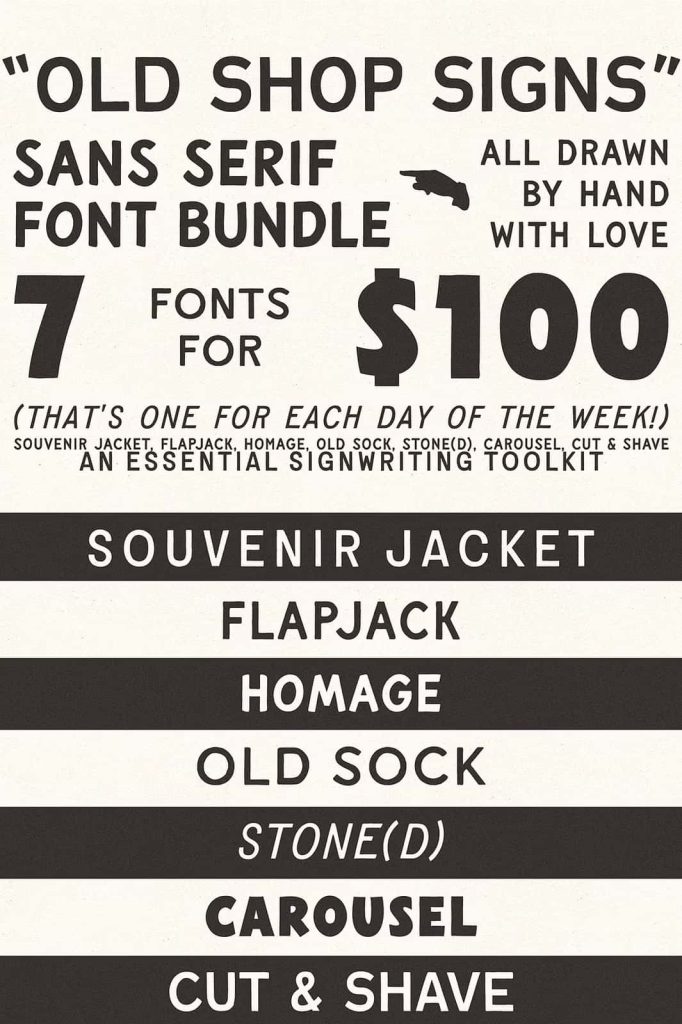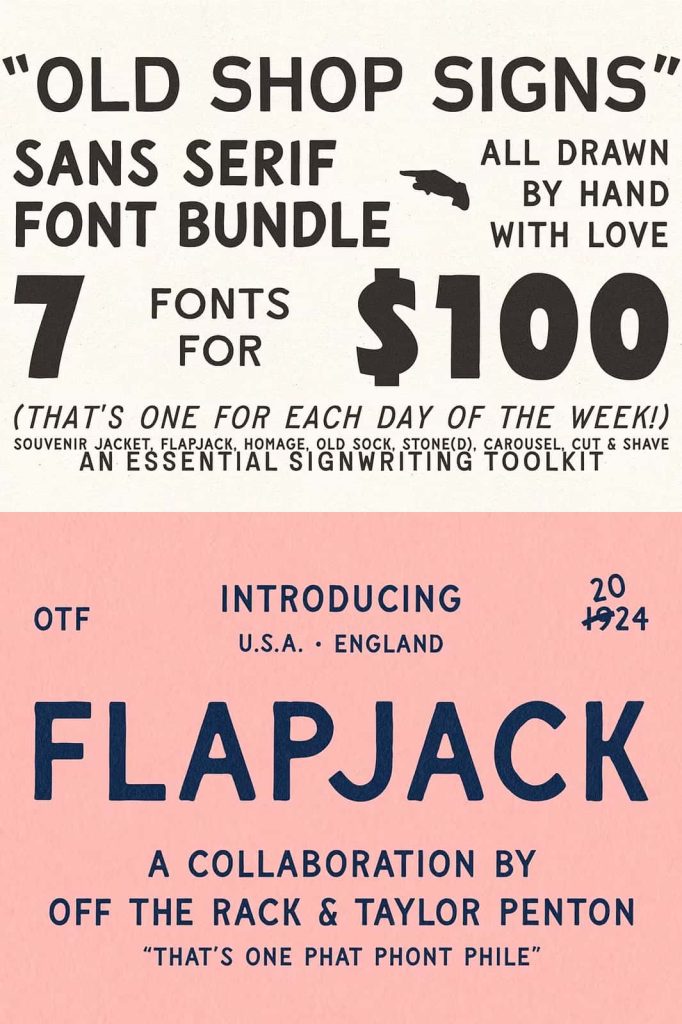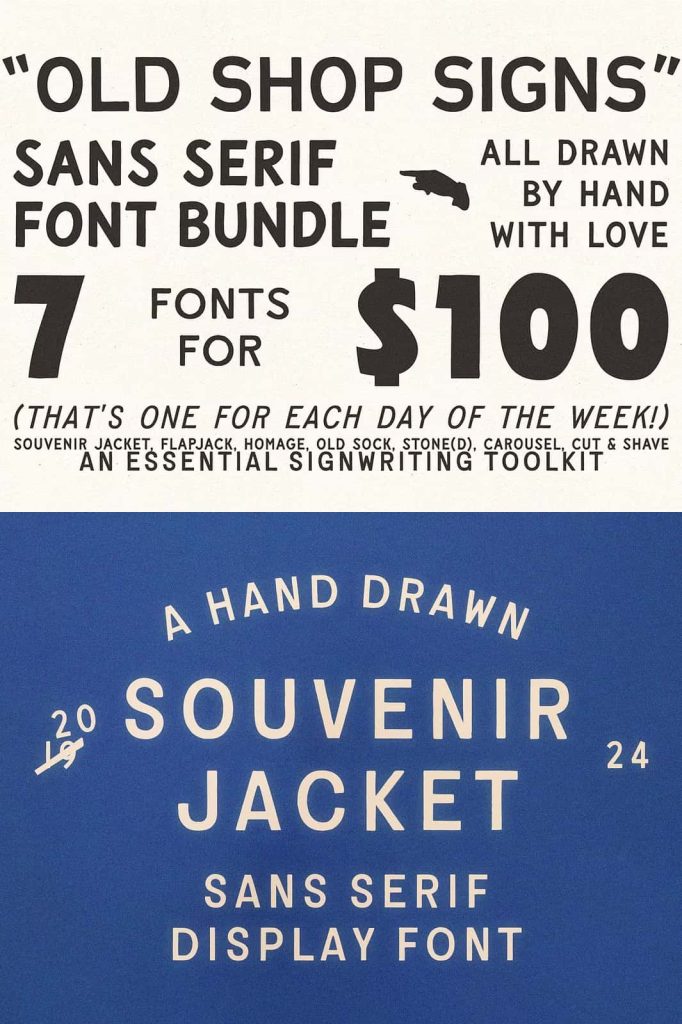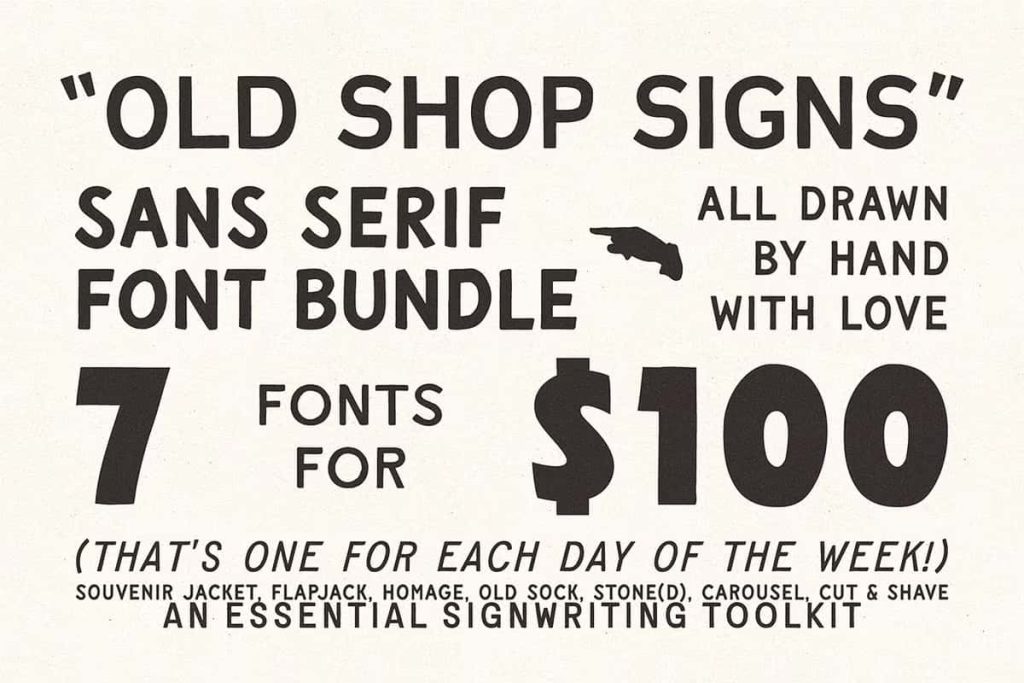
Vintage Sans Serif Font Collection
Bring authentic handmade character to your next creative project with this versatile vintage sans serif font collection. Designed to work across a wide range of applications, this collection gives you the freedom to mix and match different hand-drawn styles while creating a cohesive visual identity. Every font in the collection takes inspiration from classic signwriting and traditional lettering, capturing the imperfect charm that makes handmade typography so appealing.
Instead of relying on perfectly uniform digital forms, these fonts embrace subtle irregularities and natural variations. Each letter feels intentionally drawn by hand, creating a delightfully wonky appearance that adds warmth, personality, and authenticity to your designs. Whether you are building a vintage brand, designing packaging, creating posters, or preparing social media graphics, this collection helps your typography stand apart from standard digital fonts.
Authentic Hand-Drawn Character
The collection focuses on the natural qualities of traditional signwriting. Each font receives careful hand-drawn treatment to preserve the small variations that make handmade lettering feel genuine. Slight differences in curves, proportions, and spacing create an organic rhythm that digital typefaces often struggle to reproduce.
This approach gives your designs a more personal visual voice. Instead of appearing overly polished or mechanical, the lettering feels like a skilled sign painter created it specifically for your project. The result works particularly well for brands and designers who want to communicate craftsmanship, nostalgia, creativity, and individuality.
Inspired by Classic Signwriting
Classic signwriting provides the foundation for the collection’s visual personality. Traditional signs often relied on strong lettering, confident shapes, and practical compositions that needed to remain visible and memorable. These fonts capture that same spirit while adapting it for modern digital design.
The hand-drawn construction preserves the character of old-fashioned storefronts, market signs, advertisements, labels, and painted typography. You can use these fonts to recreate a vintage atmosphere without making your project feel outdated. Their expressive forms work equally well in retro-inspired designs and contemporary compositions.
Mix and Match for Unique Results
One of the biggest advantages of a font collection is the ability to combine different styles. Mix and match the fonts to establish clear hierarchy, create contrast, and give each part of your design a distinctive role. Use a stronger style for the main headline, a complementary font for secondary information, and another variation for decorative accents.
Combining multiple hand-drawn styles can make your typography feel more authentic and dynamic. You can create layouts that resemble vintage advertisements, hand-painted shop signs, old product labels, market packaging, or classic promotional graphics. The different styles work together while maintaining the same handcrafted visual language.
Perfect for Vintage-Inspired Branding
This vintage sans serif font collection provides an excellent foundation for branding projects that need personality. Use the fonts to create logos, wordmarks, slogans, packaging titles, labels, business cards, and promotional materials. The hand-drawn aesthetic can help a brand communicate craftsmanship and authenticity from the very first impression.
The collection works particularly well for cafés, restaurants, breweries, bakeries, clothing brands, barbershops, creative studios, artisan businesses, food companies, lifestyle brands, and independent retailers. The nostalgic appearance can help these businesses create a recognizable identity while maintaining a friendly and approachable tone.
Make Packaging Stand Out
Packaging provides an ideal opportunity to showcase hand-drawn typography. These fonts can transform ordinary product names into memorable visual elements. Use them for labels, product titles, flavor names, promotional messages, stickers, boxes, bags, and specialty packaging.
The imperfect handmade quality can make products feel more personal and crafted. This approach works especially well for products that emphasize traditional methods, independent production, local character, or creative craftsmanship. Combine the typography with illustrations, textures, muted colors, or vintage-inspired layouts to strengthen the overall aesthetic.
Great for Posters and Signage
The strong personality of these fonts makes them highly effective for posters and promotional graphics. Their hand-drawn construction creates immediate visual interest, while the bold sans serif foundation keeps important messages easy to recognize.
Use the collection for event posters, music artwork, market signs, festival promotions, restaurant menus, community announcements, advertising campaigns, and retail signage. Large headlines can create an immediate focal point, while smaller supporting text can complete the composition without competing with the main message.
Use the fonts individually or mix and match them to create distinctive visual identities. From logos and packaging to posters, apparel, signage, social media graphics, and advertising, these hand-drawn typefaces can add warmth and personality to almost any creative project. If you want typography that feels authentic, nostalgic, and intentionally handmade, this vintage-inspired collection provides a strong and flexible foundation for your next design.